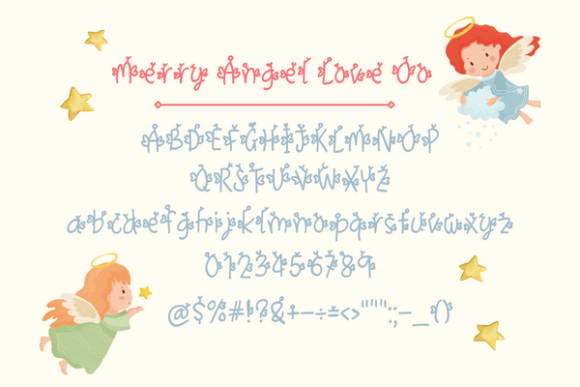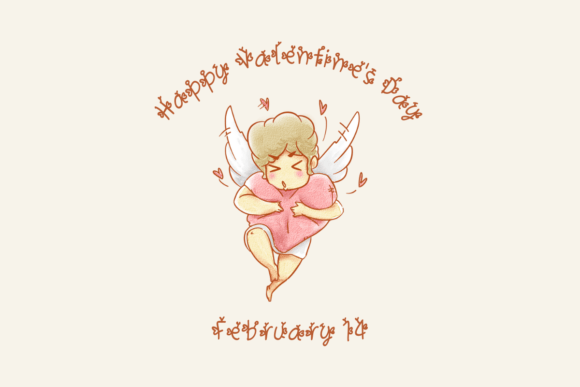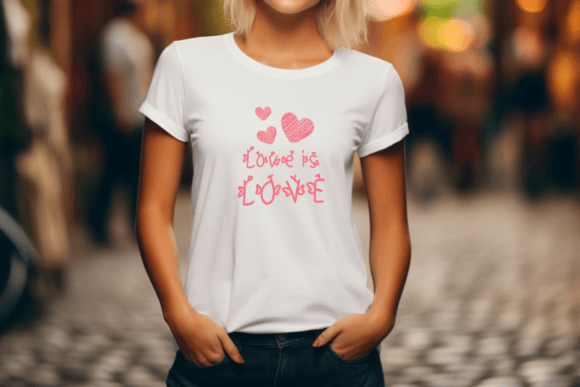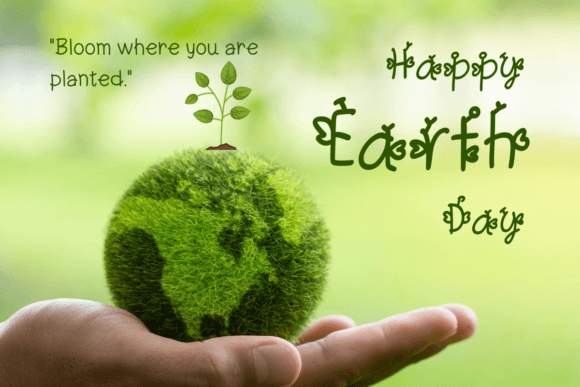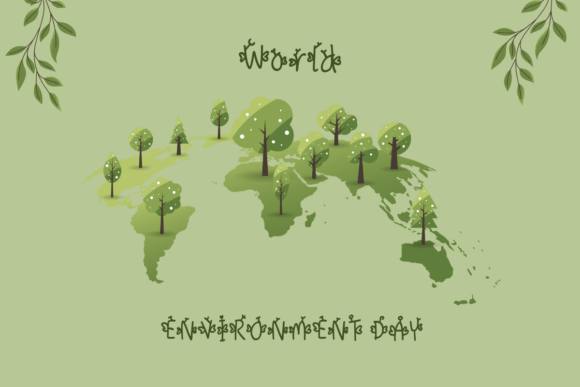
Introduction to Merry Angel Love Oo Font Font
Fonts play a crucial role in design, and the Merry Angel Love Oo Font font is a typeface that brings both character and versatility to any project. Whether you’re working on a branding project, a website, or a print design, the Merry Angel Love Oo Font font offers a unique style that can elevate your work.
Merry Angel Love Oo is a cute and cheerful decorative font.
It has a unique style and unusual look that makes it more interesting Fall for its ravishing style and use it to create gorgeous create Product Packaging, Poster, Various cards, decorate bags, drinking glasses, beautiful stationery.
Key Features of Merry Angel Love Oo Font Font
Why Choose Merry Angel Love Oo Font Font?
The Merry Angel Love Oo Font font is more than just a typeface – it’s a design tool that helps you communicate your message with style and clarity. Its unique character set and versatile design make it suitable for a wide range of applications, from elegant invitations to bold headlines.
With its carefully crafted letterforms and balanced proportions, the Merry Angel Love Oo Font font ensures readability and visual appeal across all mediums.
What makes Merry Angel Love Oo Font font special?
The Merry Angel Love Oo Font font stands out with its unique design, exceptional readability, and versatility across various design applications.